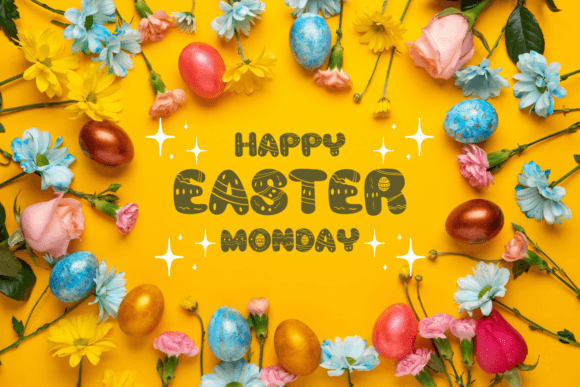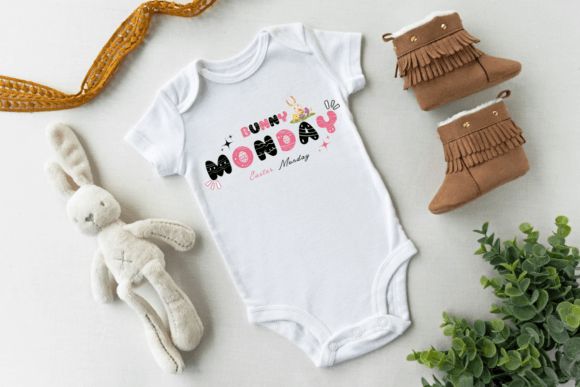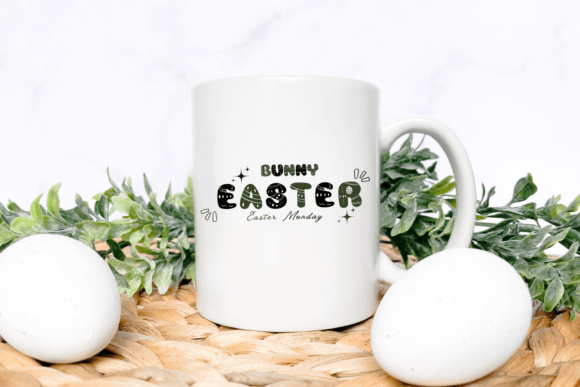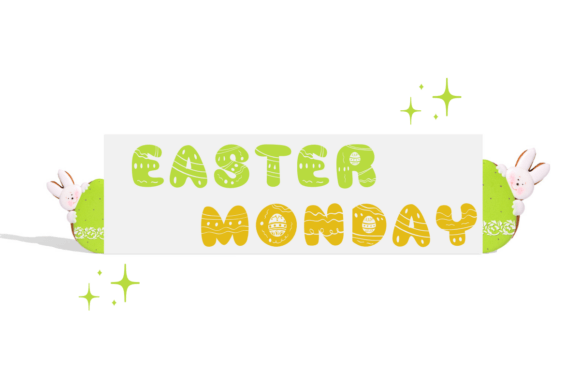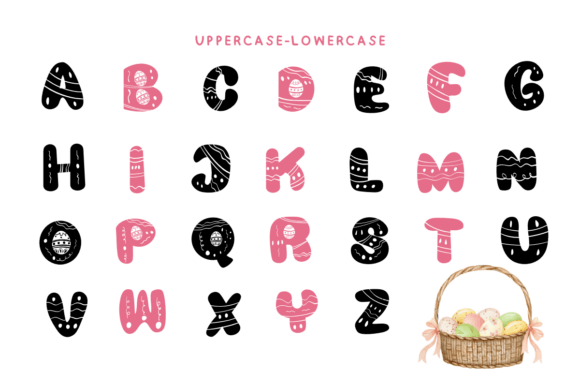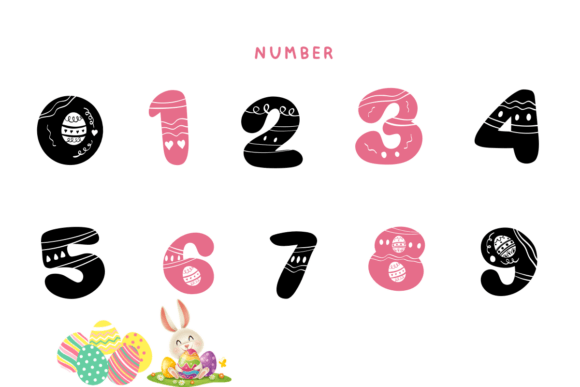
Unleash Your Creativity with Easter Monday Font: A Versatile Decorative Delight
Are you a designer, crafter, or simply someone who loves to add a personal touch to your everyday creations? Look no further than the Easter Monday Font, a meticulously designed decorative font that’s perfect for a wide range of applications. From personal note-taking and diary entries to crafting heartwarming greeting cards, this font is sure to bring an uncompromising touch of elegance to your work.
A Font that’s Anything but Ordinary
At first glance, Easter Monday Font may seem like a niche font, perfect only for Easter-themed designs. But nothing could be further from the truth. While it’s certainly ideal for Easter-related projects, its versatility extends far beyond, making it a valuable addition to any designer’s or crafter’s toolkit.
Whether you’re looking to add a touch of whimsy to your designs or simply want to create something truly unique, Easter Monday Font is the perfect choice. Its appealing aesthetics are sure to elevate your work, adding a level of sophistication and elegance that’s hard to find with other fonts.
Endless Possibilities with Easter Monday Font
So, what can you do with Easter Monday Font? The possibilities are endless! Here are just a few ideas to get you started:
- Personal Note-taking and Diary Entries: Add a touch of elegance to your personal notes and diary entries with Easter Monday Font. Perfect for jotting down thoughts, ideas, and inspiration.
- Greeting Cards: Create heartwarming greeting cards for Easter, birthdays, holidays, or just because. The Easter Monday Font is sure to make your cards stand out.
- Banners and Signs: Add a pop of personality to your banners and signs with Easter Monday Font. Perfect for parties, events, or simply decorating your home.
- Custom Mugs and Apparel: Create one-of-a-kind custom mugs, t-shirts, and other apparel with Easter Monday Font. A great way to add a personal touch to your gifts or everyday items.
- Social Media Posts: Elevate your social media posts with Easter Monday Font. Perfect for creating engaging and eye-catching content that will make your followers take notice.
- Stationery and Cards: Add a touch of elegance to your stationery and cards with Easter Monday Font. Perfect for writing letters, sending invitations, or creating handmade cards.
What Sets Easter Monday Font Apart
So, what makes Easter Monday Font so special? Here are just a few things that set it apart:
- Unique and Versatile: Easter Monday Font is a truly unique font that’s versatile enough to be used in a wide range of applications.
- Elegant and Sophisticated: With its appealing aesthetics, Easter Monday Font adds a level of elegance and sophistication to any design.
- Easy to Use: Easter Monday Font is easy to use and can be easily integrated into your design workflow.
In conclusion, Easter Monday Font is a versatile decorative font that’s perfect for designers, crafters, and anyone looking to add a personal touch to their creations. With its unique and elegant aesthetics, it’s sure to elevate your work and add a touch of sophistication to any design. So why wait? Unleash your creativity with Easter Monday Font today and see the possibilities for yourself!
Whether you’re a seasoned designer or just starting out, Easter Monday Font is a valuable addition to your toolkit. So go ahead, get creative, and see what amazing things you can create with Easter Monday Font!